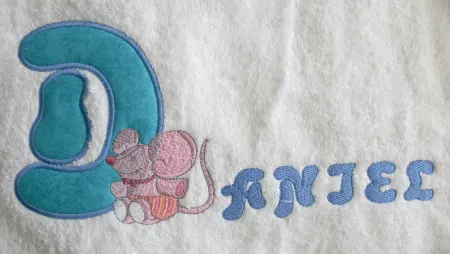
The funnest, funkiest and oh so cute Applique Alpha with a set of matching small lettes to make those easy to do but ever so proffessional crafty personalized name sets for baby.
Use these on baby's clothes, quilt, hoodies and bathroom accessories. Make personalised items for a new arrival!